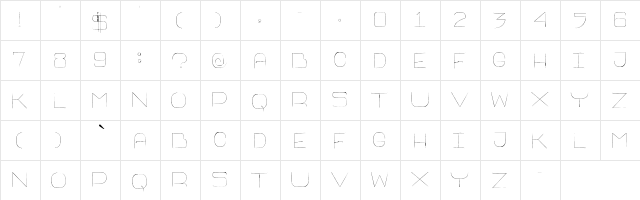
Thin Franq Regular
| Foundry | Dirt2.com |
| Designer | Andrew2 Hart |
Design Context for Thin Franq Typeface
Thin Franq is a composed and adaptable typeface that performs quietly and consistently across a wide range of design contexts. The delicate stroke weight brings airiness and refinement to layouts.